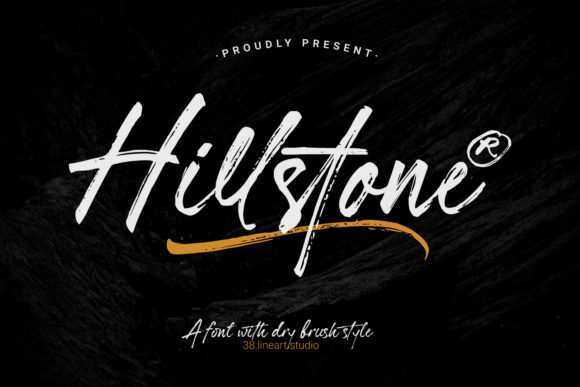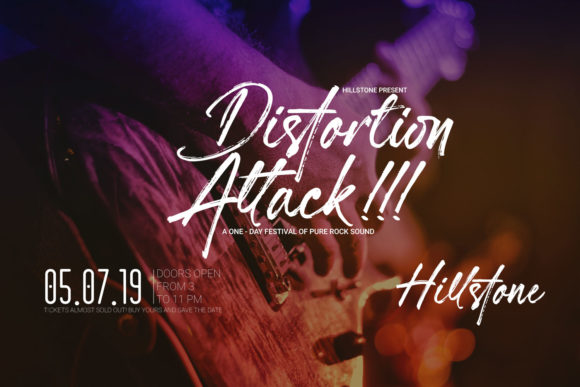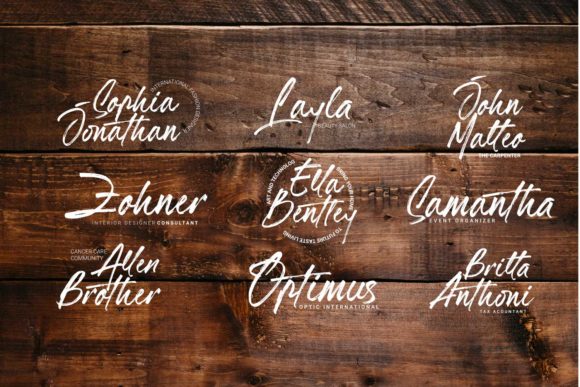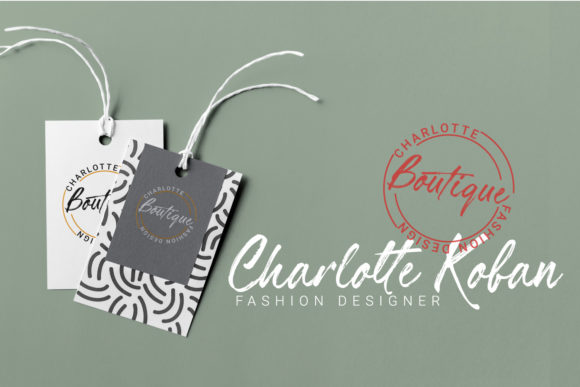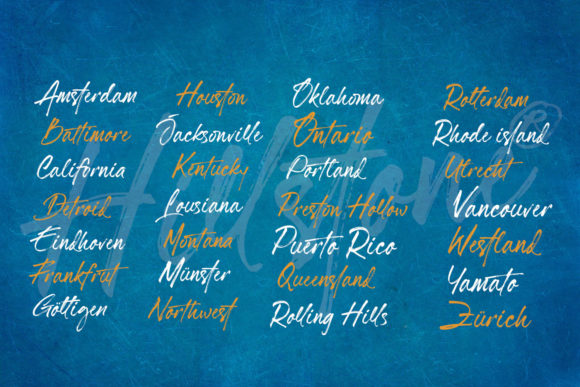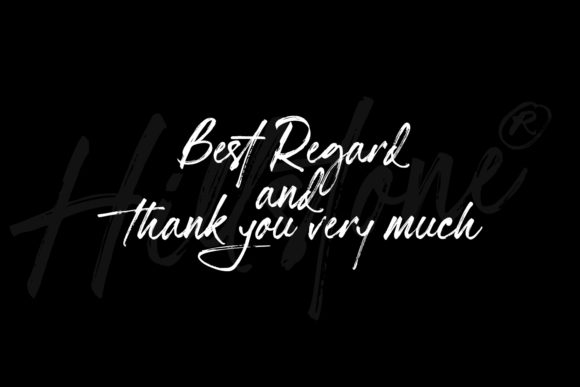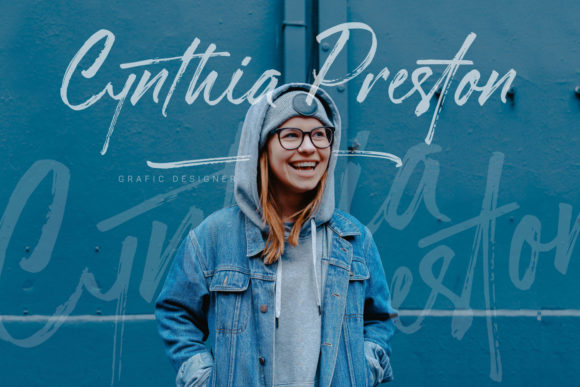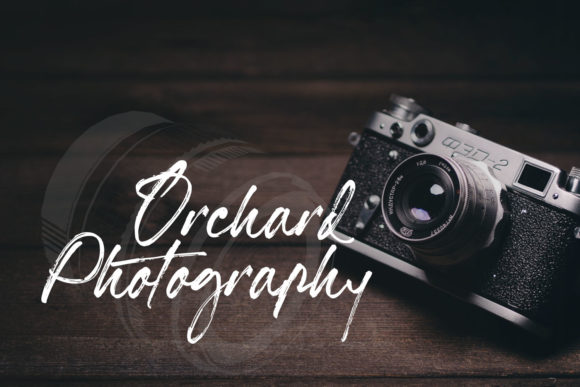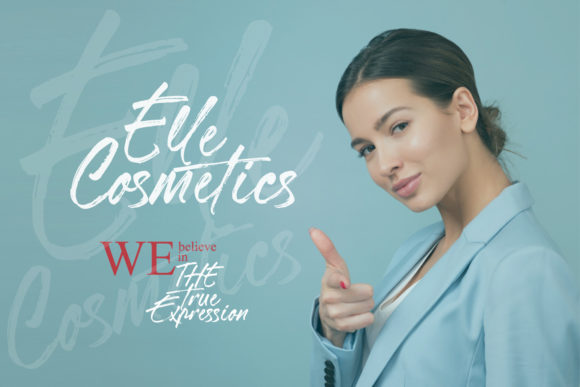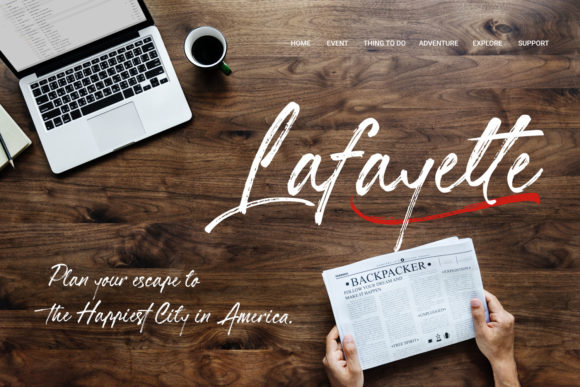
Hillstone Font
About Hillstone Font
Hillstone is a fun and playful handwritten font with a cool vibe. Get inspired by its unique charm, and turn any design idea into a true standout!